Choosing the right dessert fonts can instantly transform your design into something sweet, appealing, and irresistible. In food-related design, especially desserts, typography plays a key role in creating appetite and emotional connection. A well-chosen font can make your audience feel the softness of a cake or the sweetness of a pastry before they even taste it.
In today’s competitive visual space, dessert branding must stand out. Therefore, using the right typography is essential. Whether you are designing for a bakery, café, product packaging, or social media, dessert fonts help communicate warmth, fun, and deliciousness.
In this article, we will explore five dessert fonts: Boldova, Chubzy, Snaklet, Rosela, and Horison, along with their characteristics and tips to use them effectively.
Why Dessert Fonts Matter in Design
Understanding dessert fonts is important because typography influences how people perceive food. Unlike other industries, food design must trigger appetite and emotion.
Dessert fonts help:
- Create a sweet and inviting atmosphere
- Attract customer attention
- Strengthen brand identity
- Enhance visual storytelling
Moreover, typography often becomes the main visual element in menus, packaging, and promotional materials. As a result, choosing the right font can directly impact customer interest.
Characteristics of Dessert Fonts
1. Rounded and Soft Shapes
Dessert fonts often use smooth curves and rounded edges. These shapes reflect softness and sweetness.
2. Playful and Friendly Style
Many dessert fonts feel fun and approachable. Therefore, they are perfect for casual and cheerful branding.
3. Decorative and Stylish
Dessert typography often includes unique details that make designs look more attractive.
4. Warm and Emotional Appeal
These fonts evoke feelings of comfort, happiness, and indulgence.
5 Dessert Fonts to Make Your Design Look Delicious
Boldova
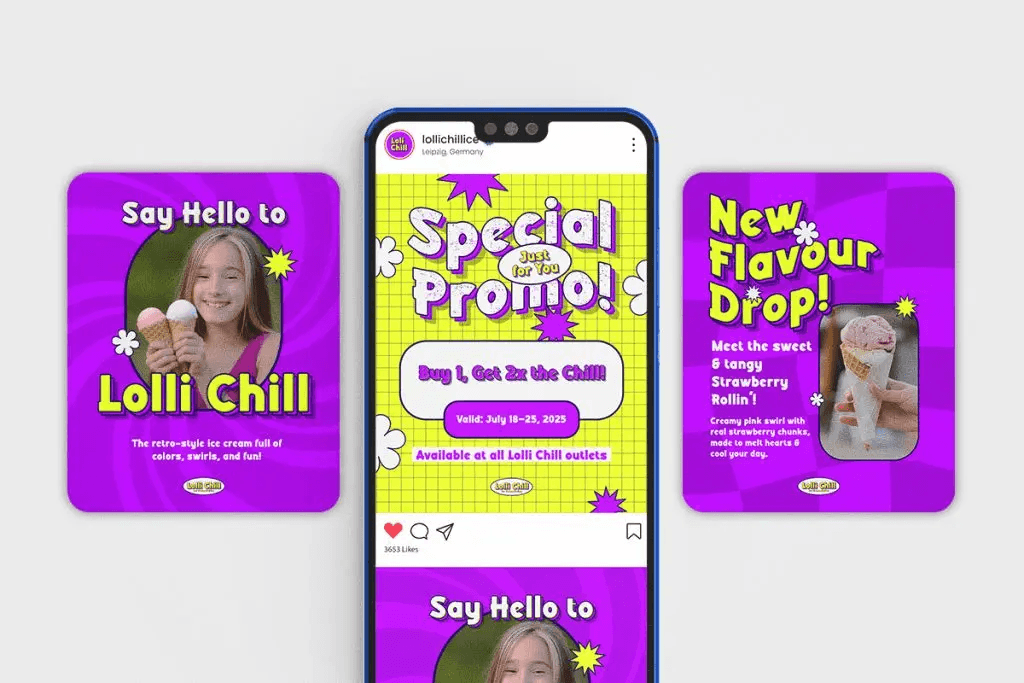
Boldova is a bold, funky retro font that combines 70s-90s nostalgia with modern style.
Best for:
- Dessert logos
- Merchandise
- Social media posts
Boldova is designed to combine retro style with modern flexibility, making it suitable for a variety of design needs. This font brings the perfect blend of personality and sophistication to any creative endeavor.
Chubzy
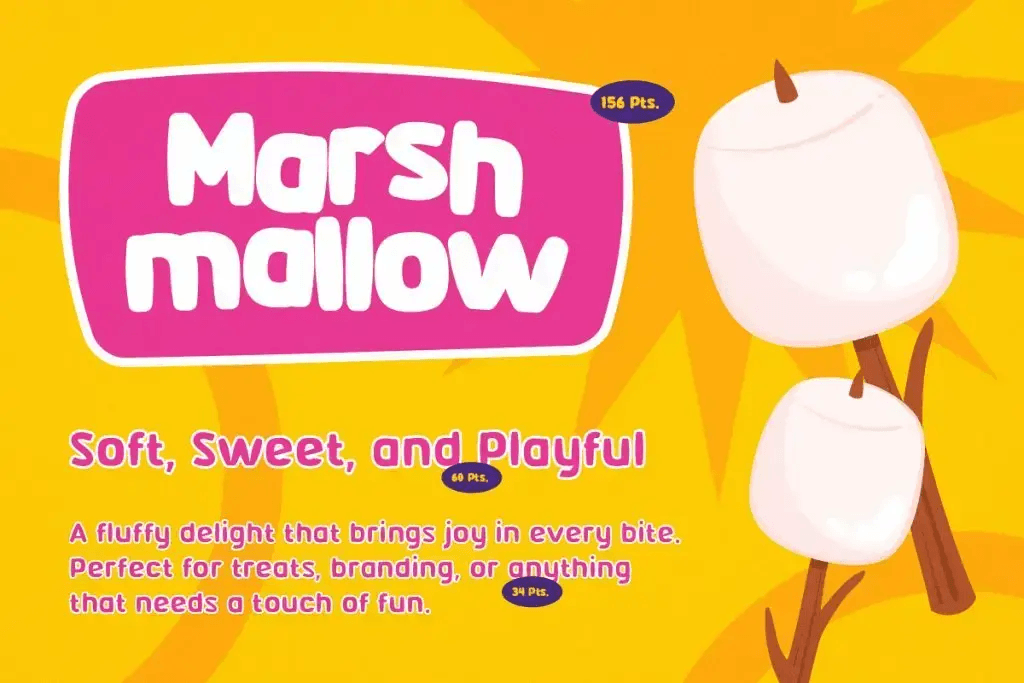
Chubzy is a chubby display font designed to make snack, dessert, and beverage brands shine
Best for:
- Dessert-related merch and stickers
- Dessert truck signage
- Snack and dessert packaging
Chubzy delivers that perfect mix of fun, boldness, and approachability.
Snaklet
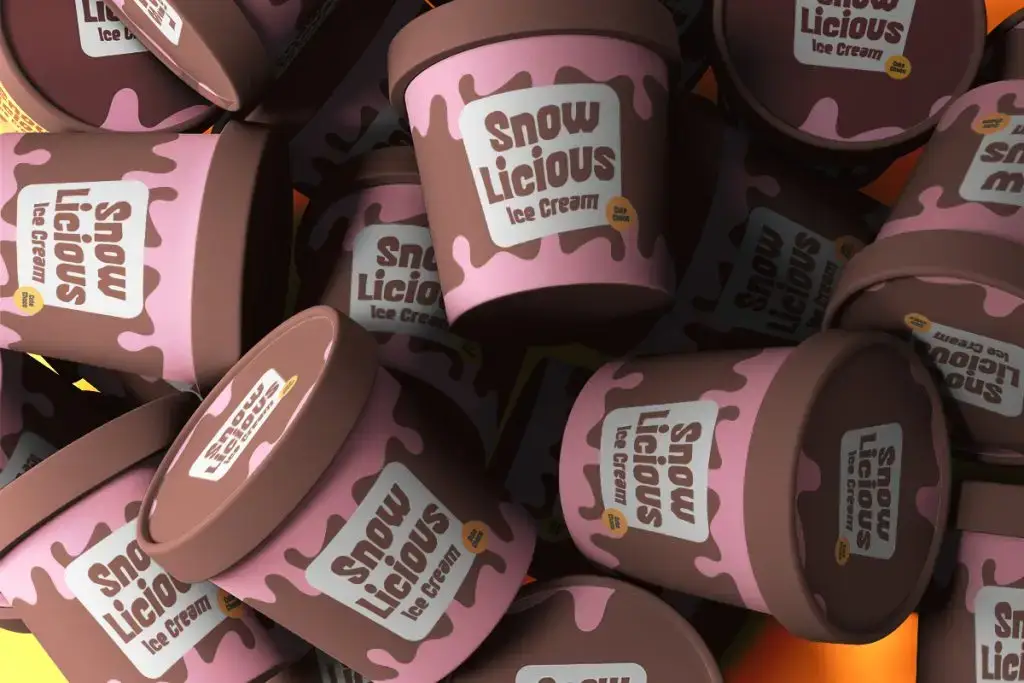
Snaklet is a bold handwritten font designed for snack and dessert packaging.
Best for:
- Dessert branding
- Ice cream, cupcake, and candy labels
- Fun Instagram promotions
Snaklet delivers bold personality and handcrafted charm, helping your brand look tasty, modern, and fun before anyone even takes a bite.
Rosela
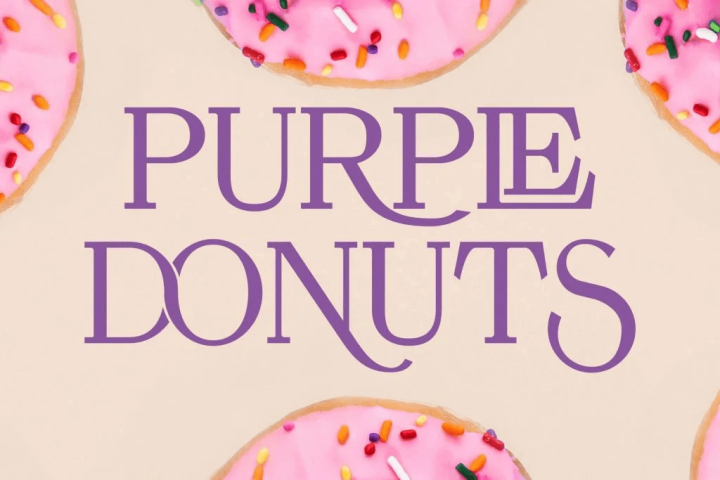
Rosela is a clean and elegant serif font that blends timeless classic charm with a modern touch.
Best for:
- Cake shop branding
- Premium bakery design
- Social Media Designs
Rosela brings timeless style to your typography.
Horison
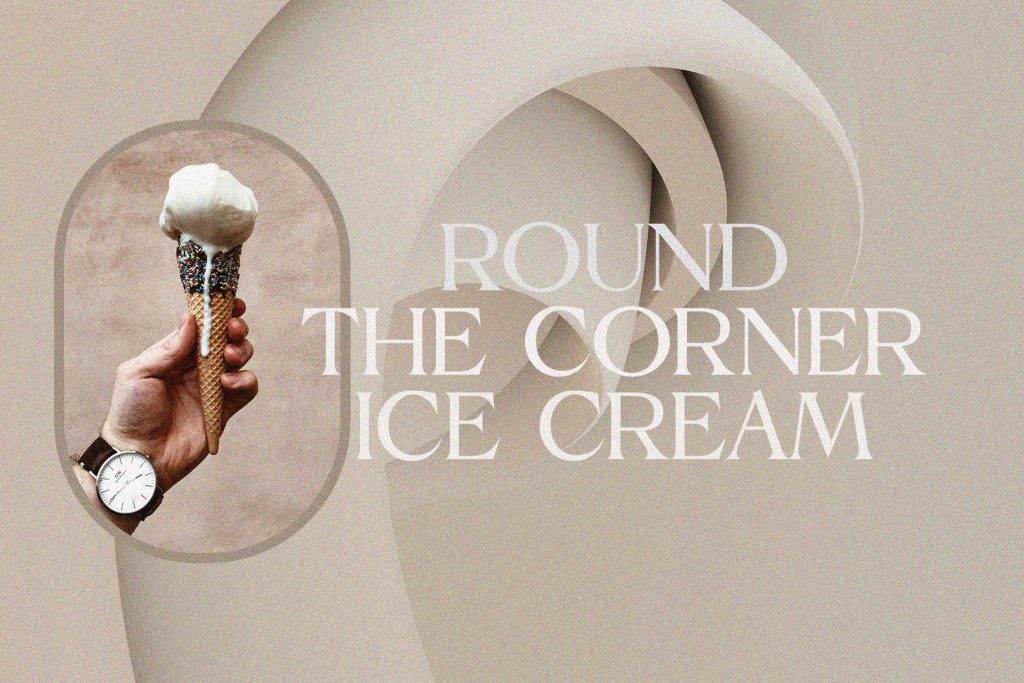
Horison is an elegant decorative serif font with beautifully balanced characters
Best for:
- Modern dessert brands
- Packaging
- Website design
Horison is a sophisticated and versatile serif font that enhances your designs with modern elegance.
How to Choose Dessert Fonts
1. Match Your Brand Personality
Different fonts create different impressions:
- Cute → Chubzy
- Bold → Boldova
- Elegant → Rosela
- Modern → Horison
2. Consider Your Target Audience
For example:
- Kids → Playful fonts
- Adults → Elegant fonts
- Trendy audience → Modern fonts
3. Focus on Readability
Even decorative fonts must be easy to read, especially on packaging and menus.
How to Use Dessert Fonts Effectively
1. Use for Headlines
Dessert fonts work best for titles and brand names.
2. Combine with Simple Fonts
Pair decorative fonts with clean fonts for better readability.
Example:
- Dessert font → Title
- Sans-serif → Description
3. Use Color Strategically
Colors enhance typography:
- Pastel colors → Soft and sweet
- Pink and cream → Dessert vibe
- Brown → Chocolate theme
4. Maintain Consistency
Use consistent typography across all platforms to strengthen branding.
Conclusion
Using the right dessert fonts can make your design look delicious, attractive, and memorable. Fonts like Boldova, Chubzy, Snaklet, Rosela, and Horison each offer unique styles that can enhance your branding.
Moreover, by understanding font characteristics and applying proper design principles, you can create visuals that not only look good but also connect emotionally with your audience.